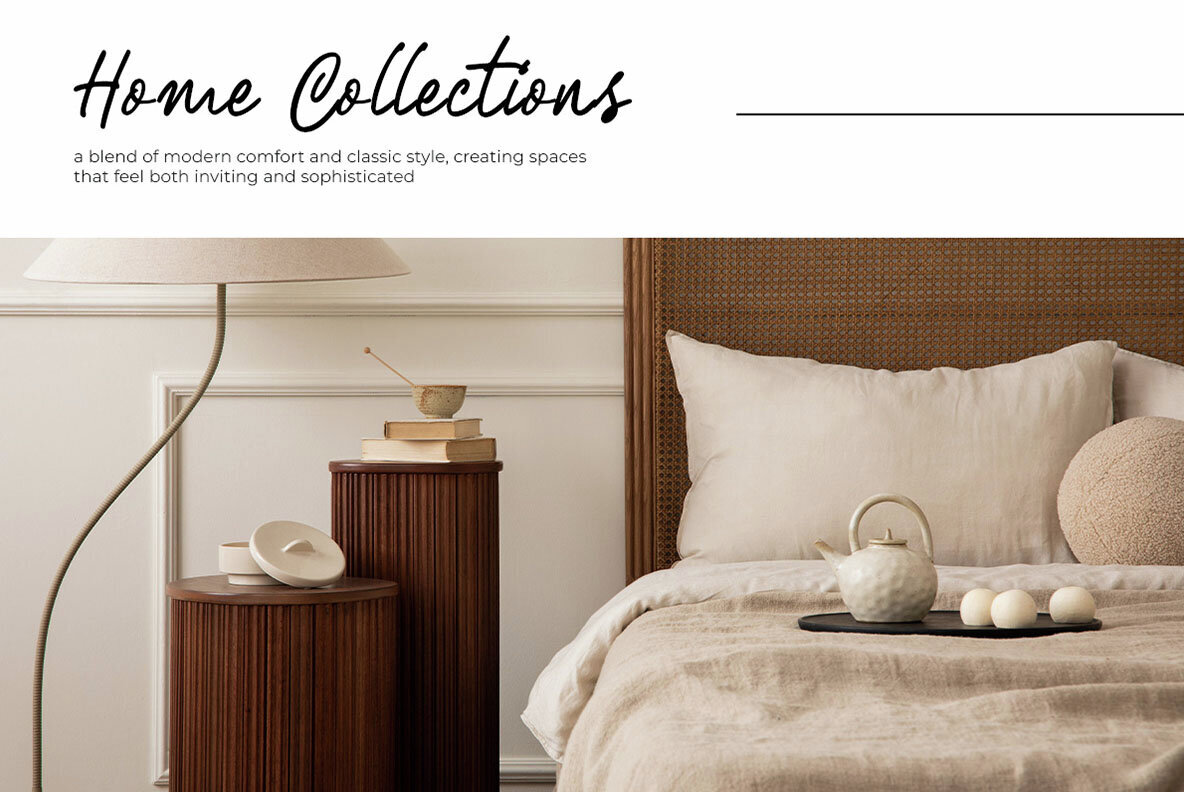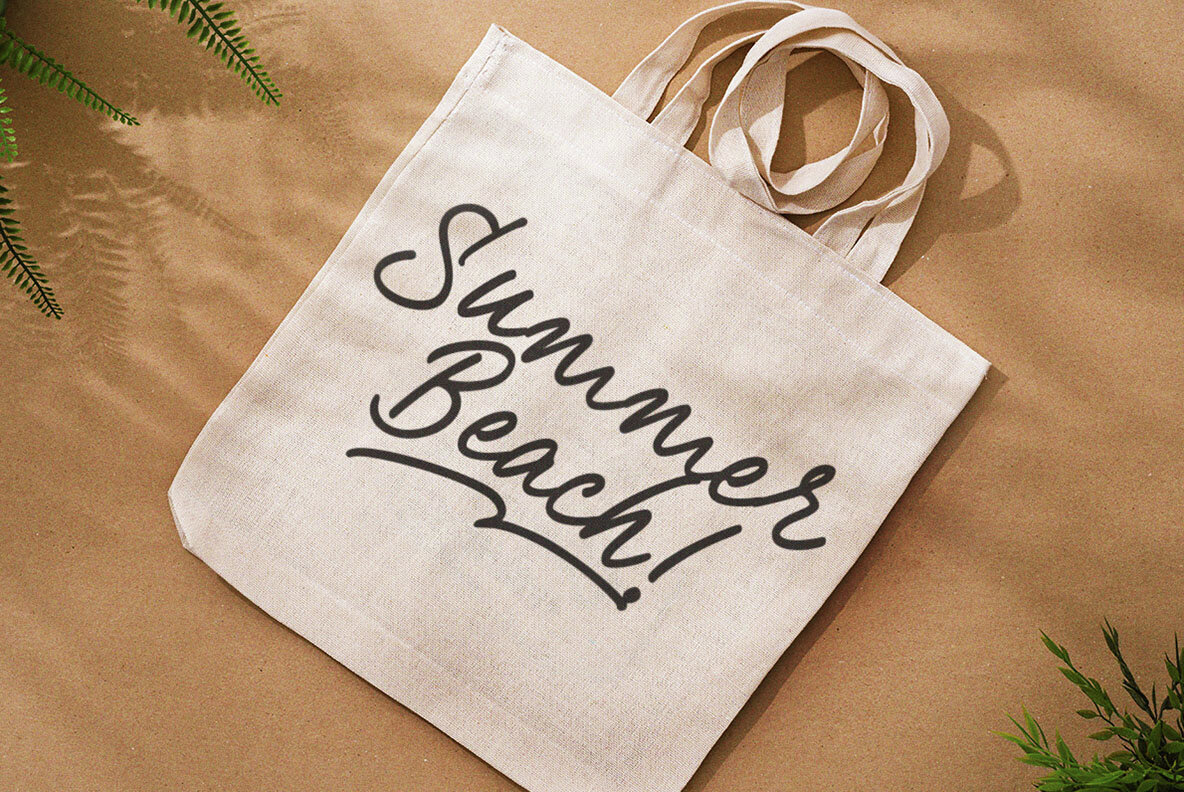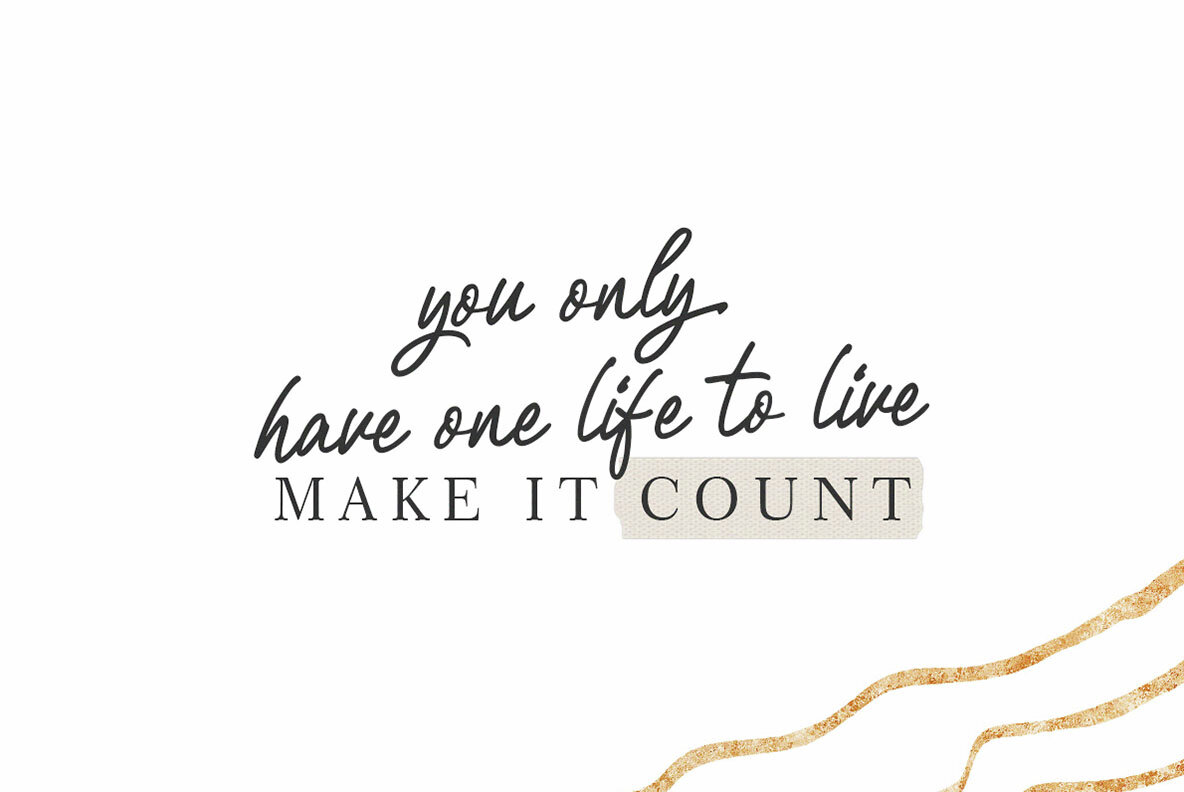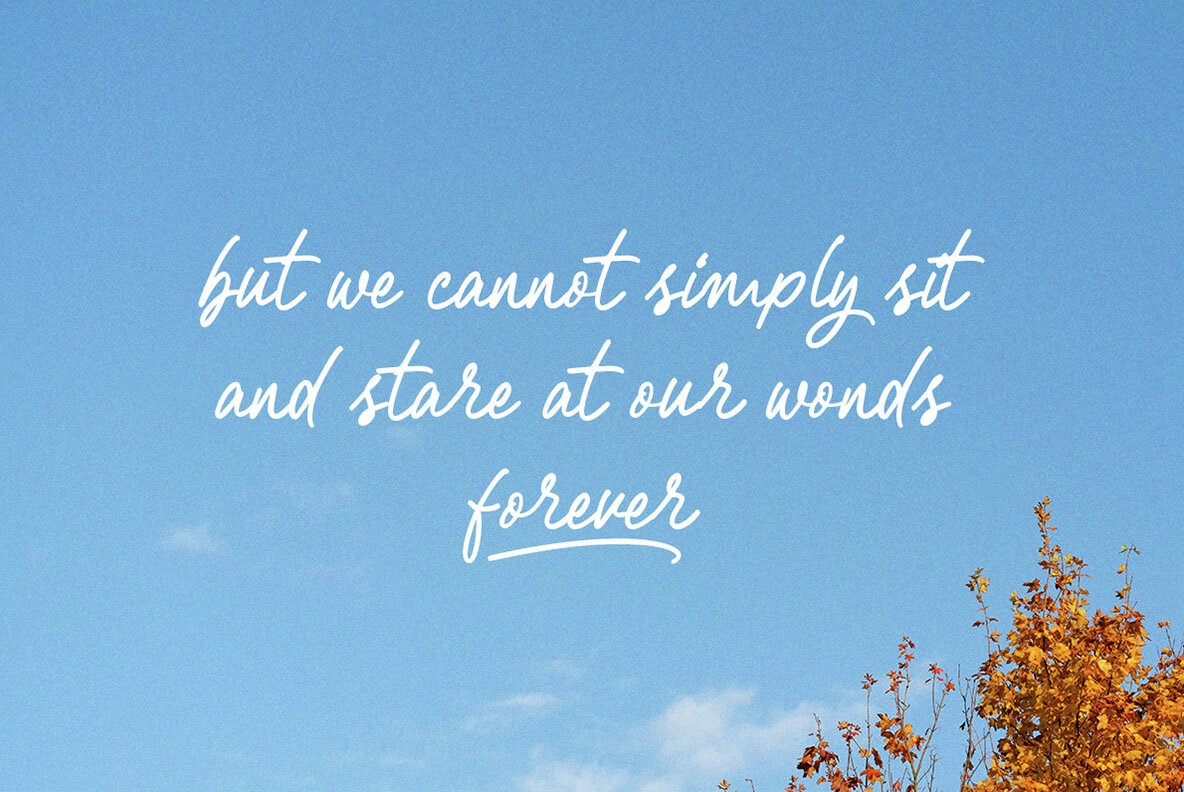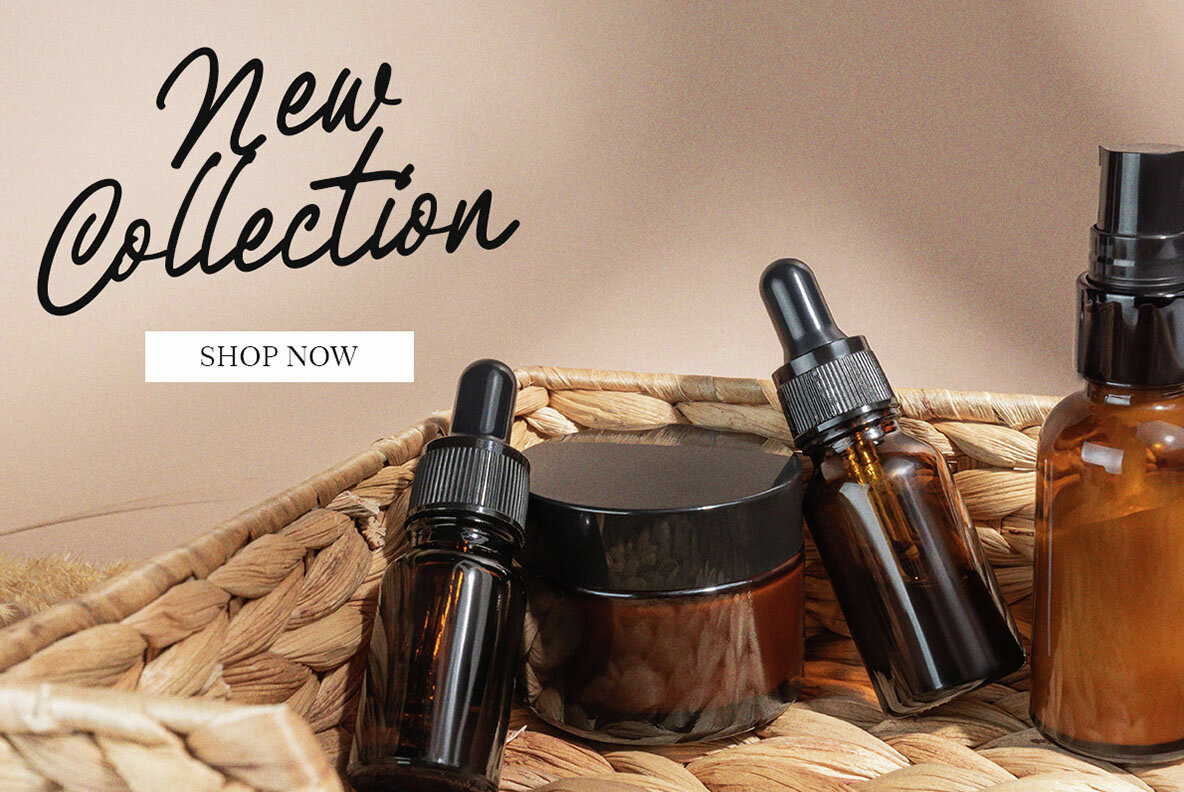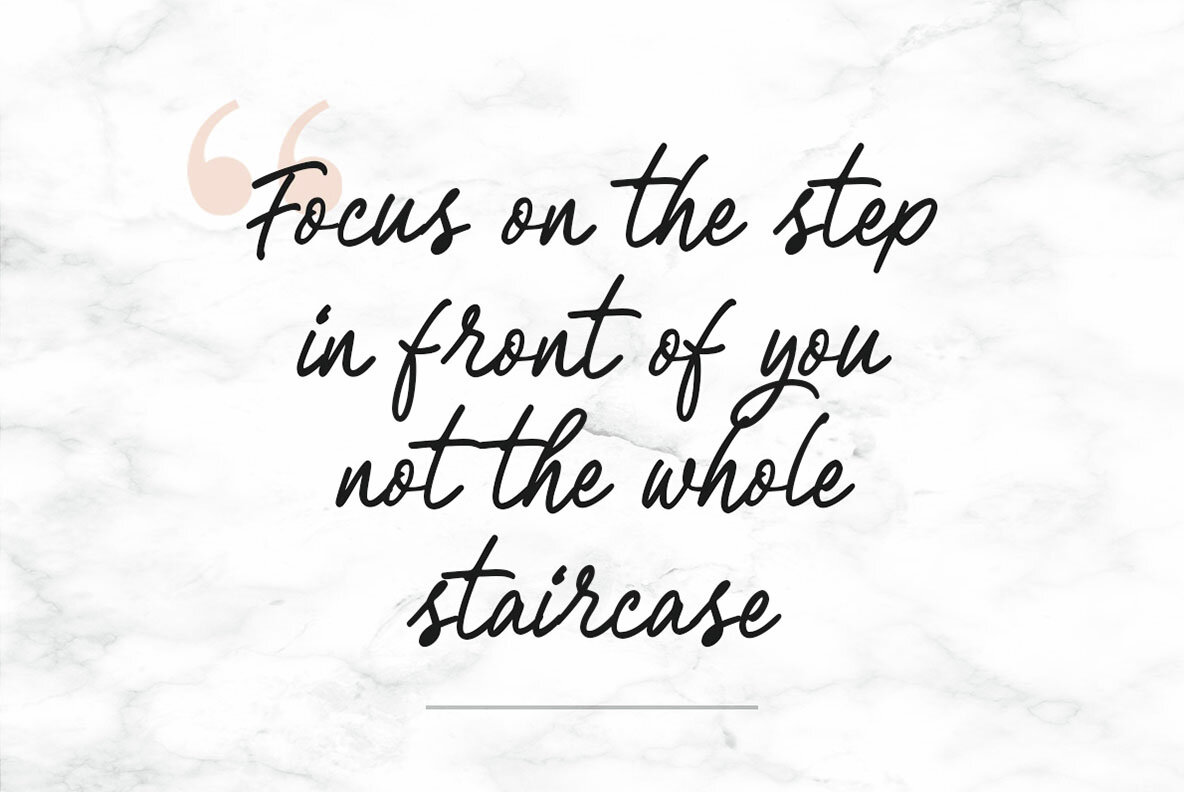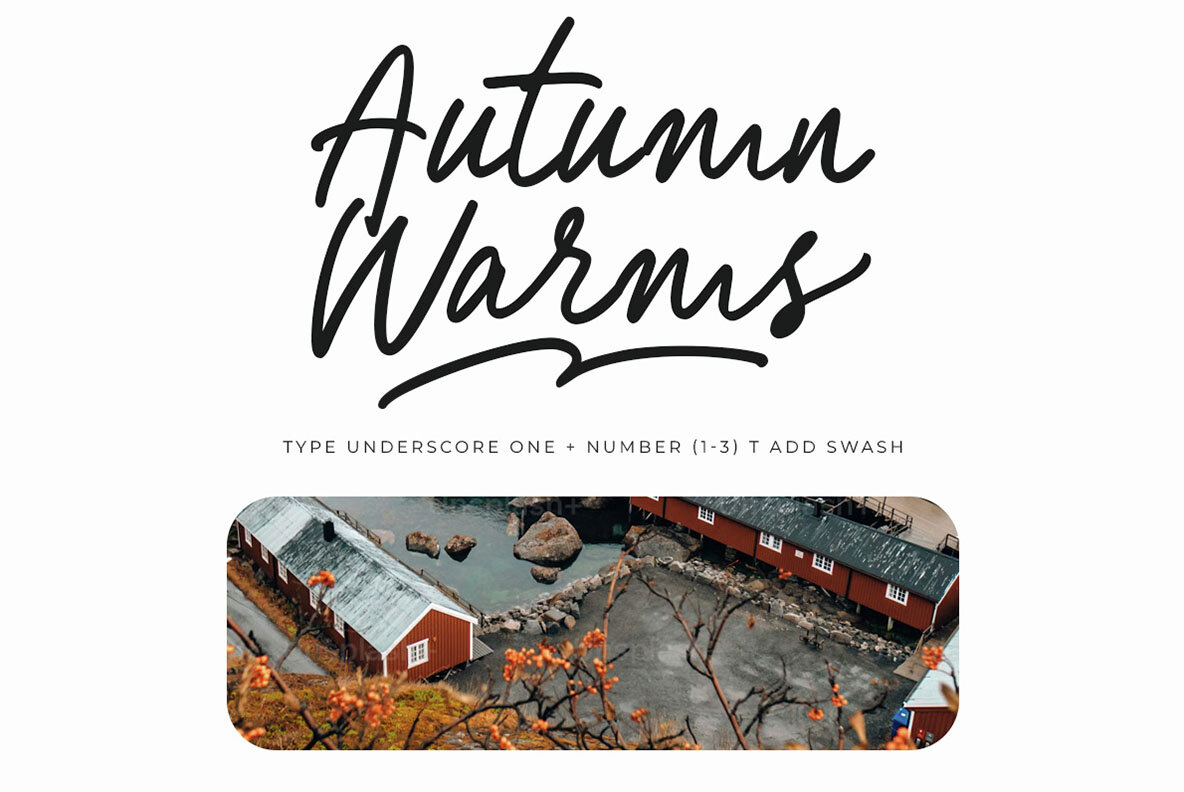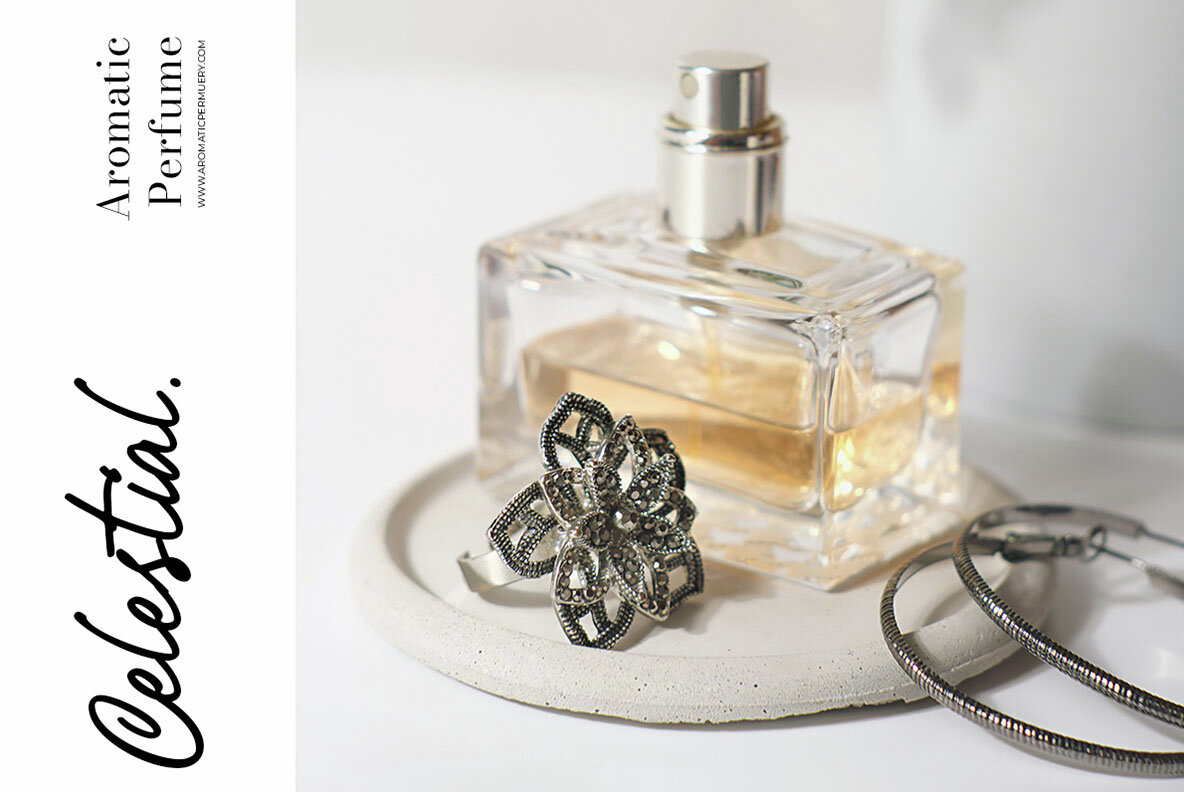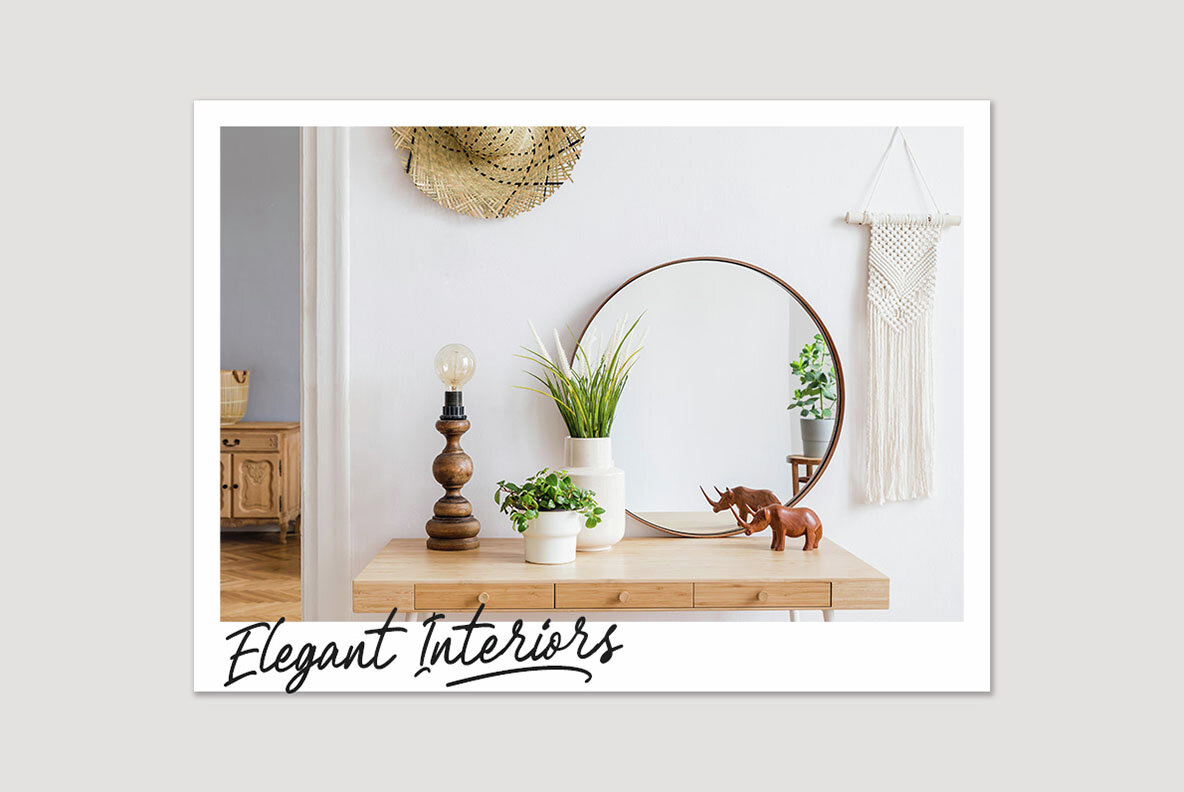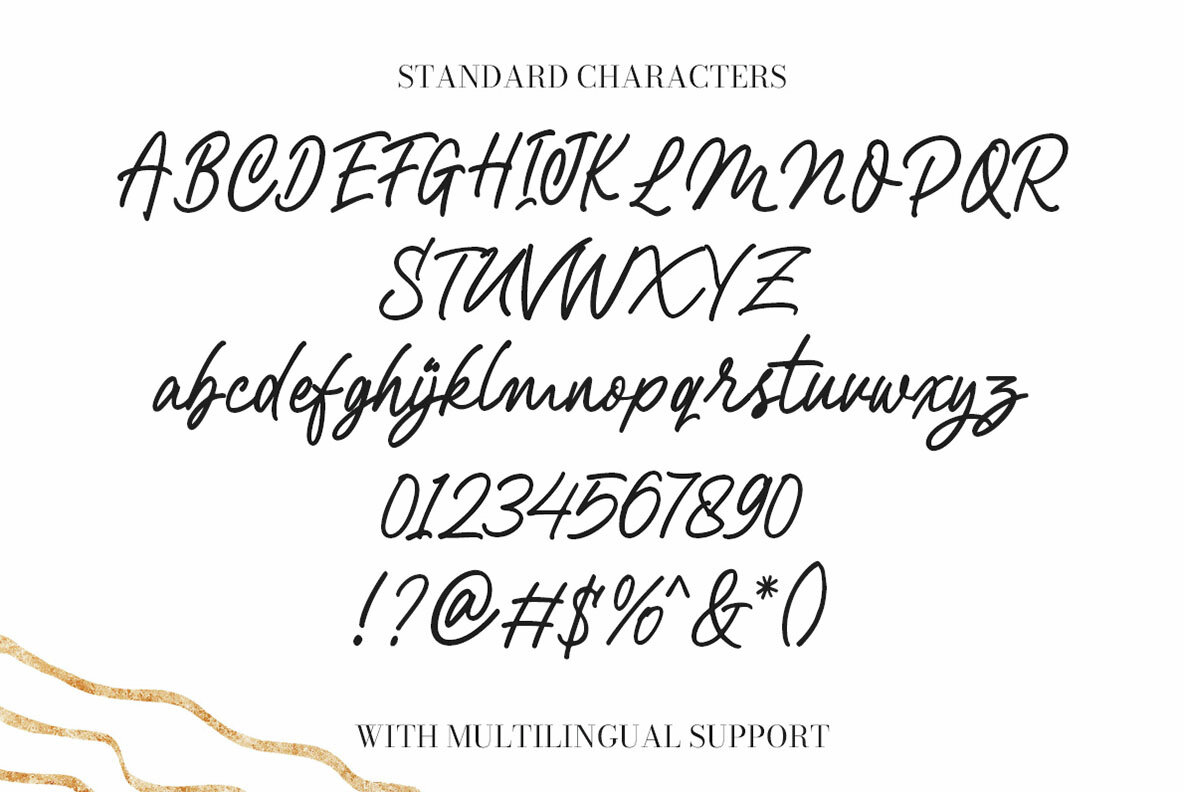
Calmora Font
Calmora Script
Discover the refined beauty of this handwriting font, embodying a seamless blend of femininity and sophistication. Its casual monoline style is ideal for imparting elegance across diverse design projects, ranging from logos to invitations, labels, and other formal documents. Suitable for magazines, books, greeting cards, wedding cards, packaging, fashion-related materials, make-up creations, stationery, novels, and advertising purposes, this script offers versatility and charm.
It boasts a comprehensive set of features, including uppercase and lowercase letters, numbers, punctuation, and a variety of alternates and ligatures to enhance your designs. With multilingual support and PUA encoding, this font ensures accessibility and adaptability for various linguistic needs. For best results, it's recommended to use this font with programs supporting OpenType features and Glyphs panels, such as Adobe applications and Corel Draw, allowing you to fully explore and utilize its extensive glyph variations.